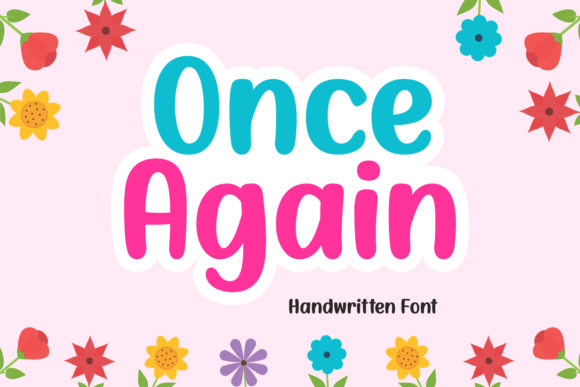
Dive into the enchanting realm of Once Again, a captivating handwritten font that exudes charm and playfulness. Its adorable, chubby characters dance across the page, adding an irresistible touch of cuteness to any project. Experience the boundless versatility of this typeface, a true chameleon that adapts seamlessly to a myriad of creative endeavors.
Embrace the whimsical nature of Once Again and let your imagination soar. Craft eye-catching logos that pop off the page, design invitations that evoke joy and wonder, or create social media posts that exude personality and charm. Unleash your creativity and explore the endless possibilities that await you with this enchanting font.
Picture this: your designs transformed into masterpieces, infused with the magic of Once Again. Your audience will be mesmerized by the captivating charm of your typography, drawn in by the playful characters that dance across the screen. Elevate your brand's identity to new heights, leaving a lasting impression that sets you apart from the ordinary.
Once Again is more than just a font; it's an experience. It's a journey into the world of imagination and creativity, where boundaries dissolve, and dreams take flight. Embrace the joy of self-expression and let Once Again ignite your passion for design.